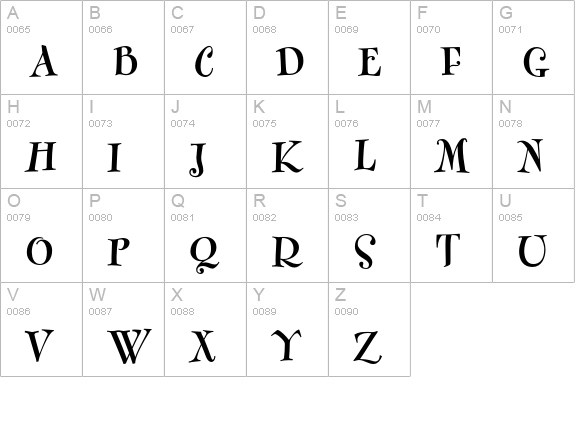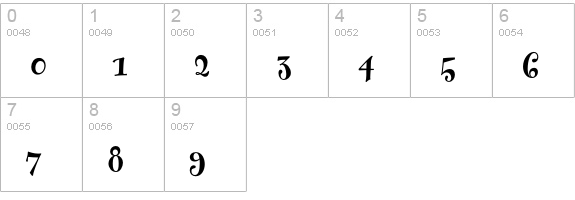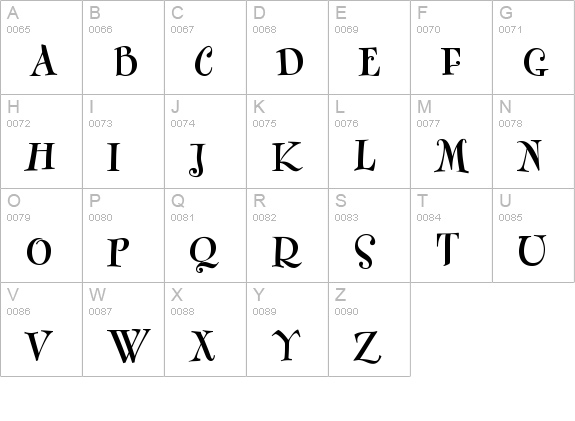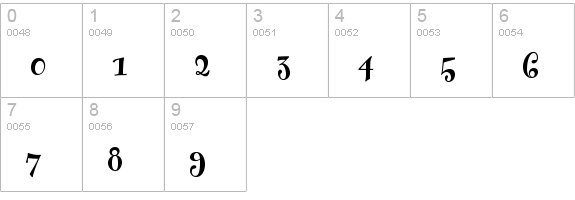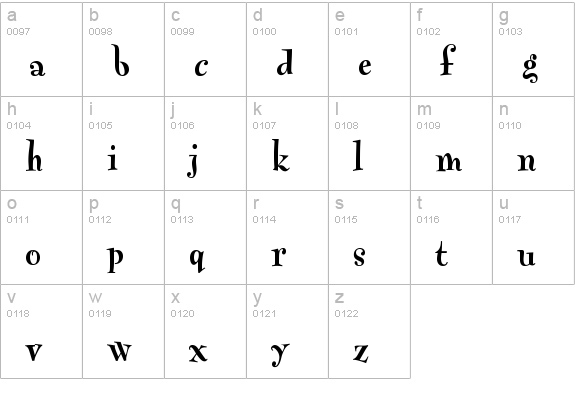
FontesqueText-Bold is a strong, high-contrast variant in the FontesqueText typeface family \xE2\x80\x94 well suited to headlines, attention-grabbing titles, and strong calls-to-action.
FontesqueText-Bold is a versatile and bold typeface designed to make a statement. With its strong and impactful presence, this font is perfect for headlines, titles, and other attention-grabbing text. The bold weight of FontesqueText-Bold gives it a commanding presence on any page, making it a go-to choice for designers looking to make a bold statement. What sets FontesqueText-Bold apart is not only its striking design, but also the fact that it is free to download. That's right, you can access this powerful font at no cost on FontsMarket.com. Whether you're working on a personal project or a professional design, FontesqueText-Bold is a valuable addition to your font library. Download it today and add a touch of boldness to your projects with this stunning typeface.